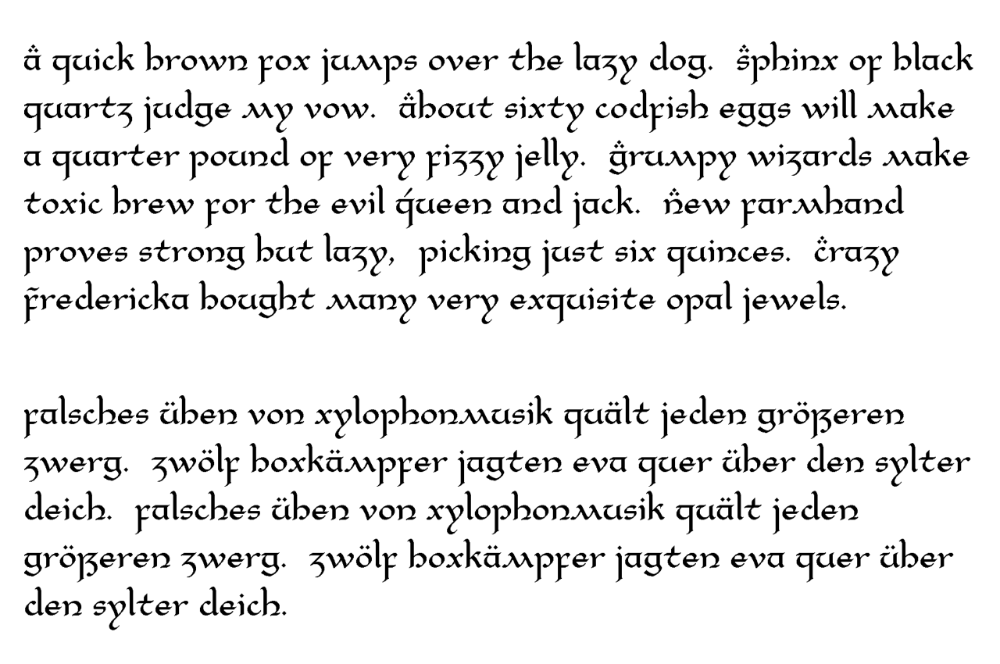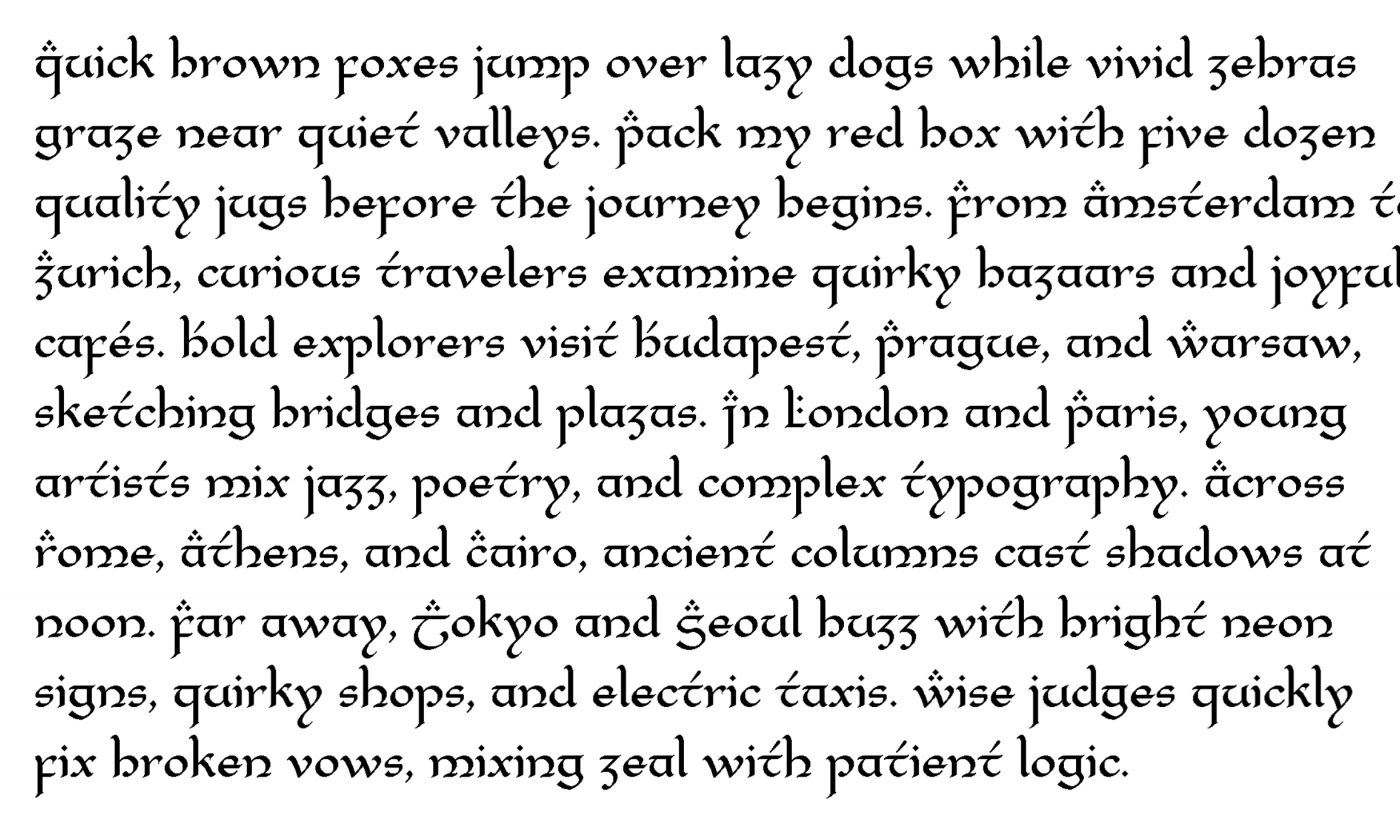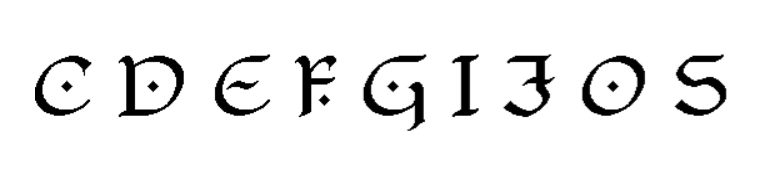
• Elrond is the wise and powerful Elf-lord of Rivendell in The Lord of the Rings.
I created this Latin set for fun. Using elements of the Tengwar script, I designed the whole alphabet. I tried to preserve the original look as much as possible while maintaining legibility. The capitals are heavily adorned with diacritics. The samples look OK, but kerning will significantly improve the text flow.
It's a work in progress.
10/10. I like it a lot. Yet I think without loosing much of legibility, it could be more rounded, or lets say more "uniform" what the terminals goes, to get closer to original look. Or maybe the contrast of the pointy lambda like characters m, k against round u and n could be altered somehow, maybe even closing the v and w bit more in the y style. Im just speculating aloud, before I try my own take on elvish style latin my self.
I've made a lot of small changes. The m, t, and z have been redesigned. I created new capitals for I, J, L, S, and T. The extended Latin set nearly covers all Western alphabets.
@Peter (Petruuccio): Thank you for your comment and generous rating. I'm still considering your suggestions to make the terminals more uniform and get closer to the original look. I replaced the lambda-style m and gave the z a ball terminal. I could give the new m ball terminals too, but then I have to redesign the h, n, and u the same way for consistency. That would seriously affect legibility and ruin the uncial elements. Well, typeface design is about small decisions and compromises to achieve balance and harmony.
Beautiful work. It translates really well to Latin.
@four: thank you for your kind words. I wrote a short note about how the Tengwar-to-Latin translation was formulated.
Design notes for Elrond (Latin)
Elrond (Latin) is not a typical fantasy font. The design is derived from my earlier Elrond Tengwar typeface (2009) and its diacritic supplement (2021). When adapting the style to the Latin alphabet, I preserved the structural logic and visual language of Tengwar. The letterforms are constructed from Tengwar primitives: vertical stems, curved bowls, hooked terminals, and floating diacritic dots. These elements are recombined to form Latin letters while maintaining the stroke logic and rhythm of the Tengwar script.
Where Tengwar structures could not directly express certain Latin letters, I turned to uncial letterforms to fill the gaps. The uncial script shares its visual DNA with Tengwar, making it a natural bridge between the two. The result is a hybrid alphabet that feels organic and consistent.
Special attention was also given to diacritics, which integrate naturally with the letterforms and echo Tengwar-style vowel marks. The goal of the project was to create a readable decorative typeface that evokes the aesthetic of Elvish manuscripts.
@Frodo7 I like the changes. When trying to play and derive from your cloneable source font, I somehow could not edit about first half of the glyphs and so far did not find out why. So I tried to play with curved bricks, instead of pixels, but stumbled upon the mentioned distinction between closed and opened glyphs, like b vs h, a vs u etc. I was also wondering how would work the archaic long s, but I guess that the ligibility would suffer, as wast majority of people never seen that glyph yet. Do you plan to eventually make this font downloadable sometime?
Considering the many design options, I have already cloned this fontstruction for further experimentation. I guess that is called a fork in crypto terms. That version features large Latin capitals. Currently, it serves as a dumping ground for discarded glyph versions.
Elrond (Latin) is intended for sale. I'll develop it by adding more language support, proper kerning, and OpenType features (stylistic alternates, terminal forms, decorative swashes). It has the potential to become popular among Tolkien fans and RPG developers.
Great "Latinization," Maestro. I wonder if other capital letters, like S and T, would be possible...
@elmoyenique: Thank you for your comment. As I mentioned above, I have a second version with large capitals. I only made a few letters so far. They are positioned above the baseline like other Latin capitals.
@elliqvl: Yes, everything is possible. The current circle height equals the x-height + ascender by design. I don't think a larger circle would look any better.
@Bryndan W. Meyerholt: Before this version, I tried one with a single story a; it looked cumbersome. Likewise, the æ was unrecognisable. So I've created the double story a for both. They are less consistent with the set, but at least they look good.